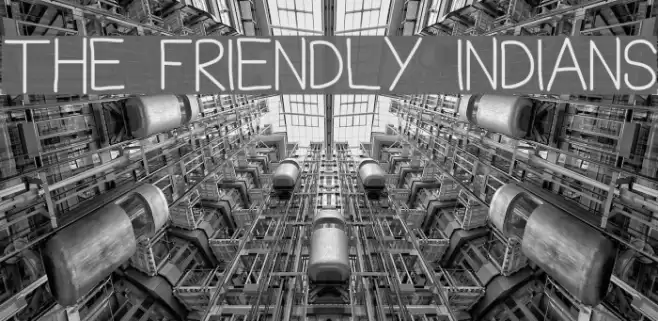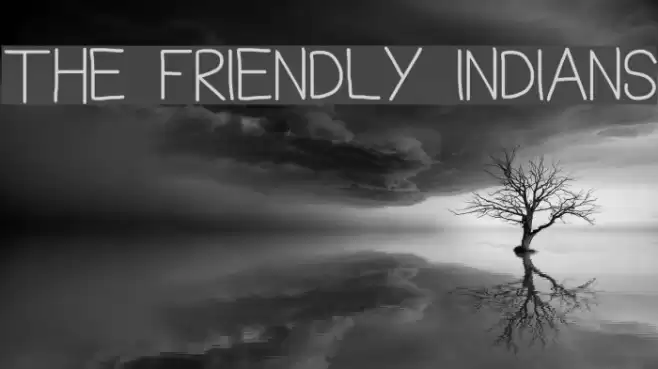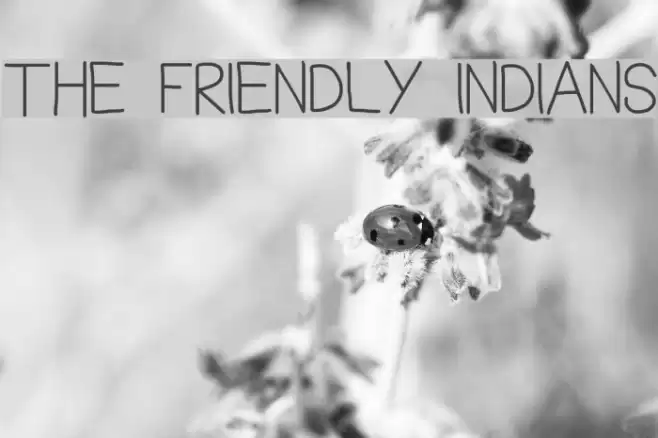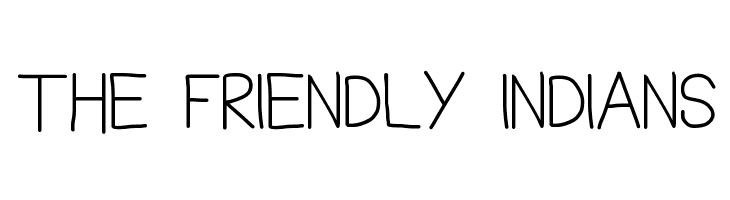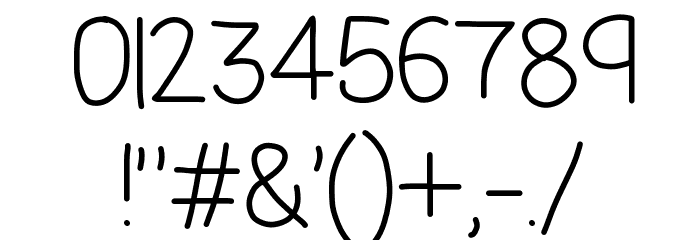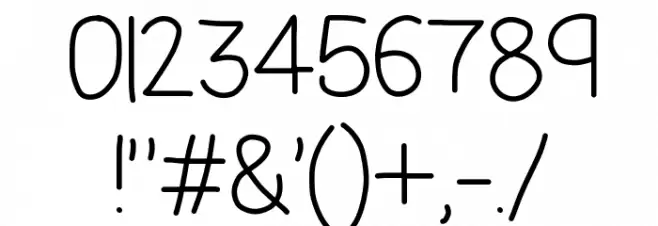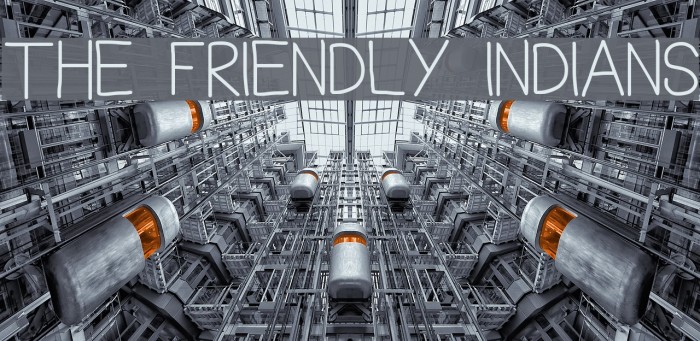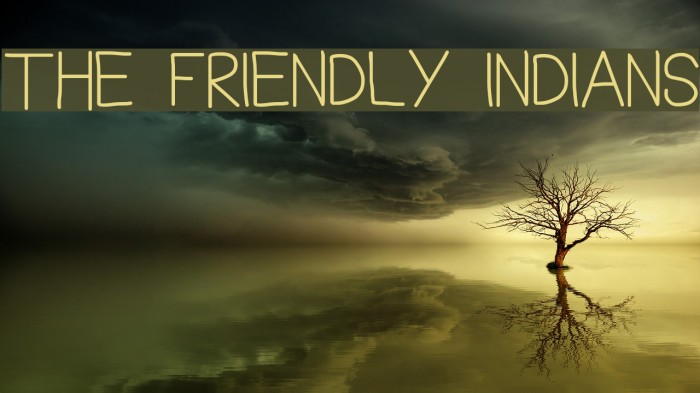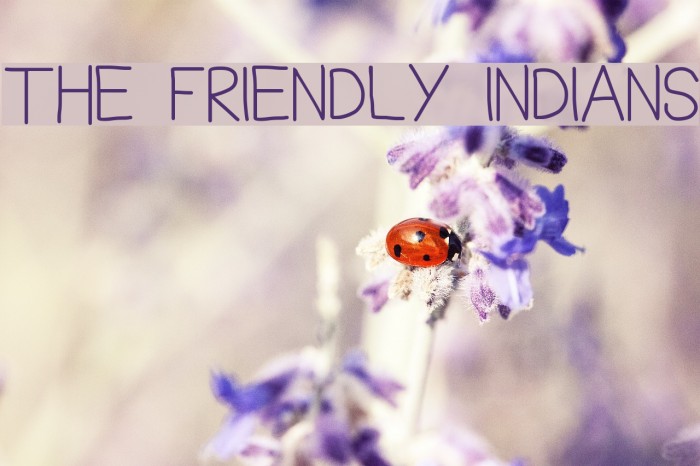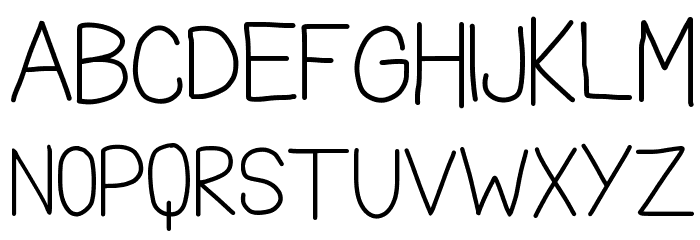
THE FRIENDLY INDIANS Font
THE FRIENDLY INDIANS Description
This font features a playful and informal handwritten style, characterized by its rounded and slightly irregular letterforms. The uppercase and lowercase letters maintain a consistent height, contributing to a uniform appearance. The strokes are thin and consistent, providing a clean and legible look. The numbers and special characters follow the same style, ensuring cohesion across all elements. This font exudes a friendly and approachable vibe, making it suitable for casual and creative projects.
A playful, handwritten font with rounded, thin strokes and consistent letter height from Uncategorized fonts.
- Proposed Projects: Ideal for children's books, greeting cards, informal invitations, and playful branding.
- Overall Style: Casual
- Use Case: Headlines, Logos, Informal Text